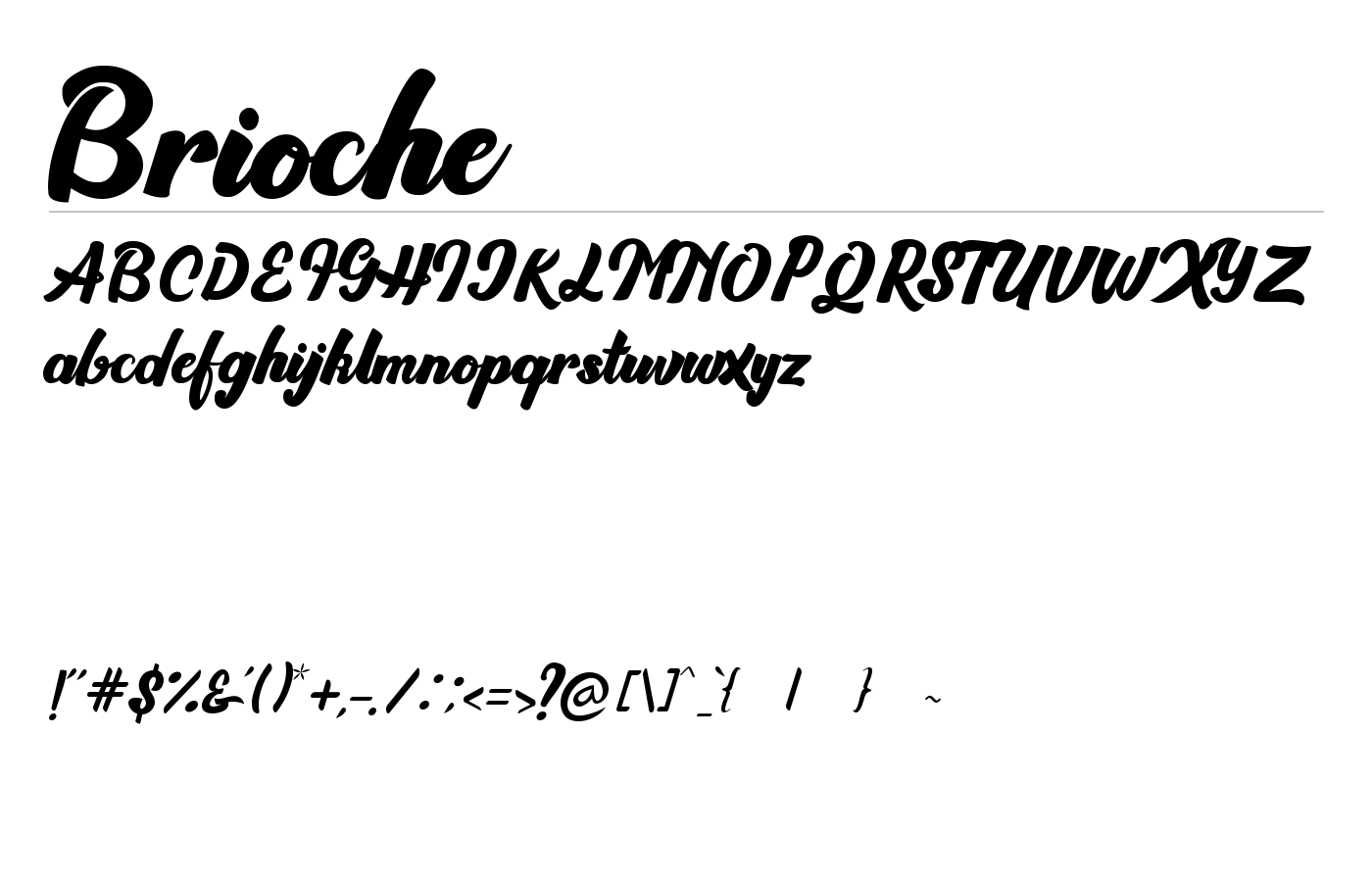
Brioche is a bold, brush script font with a lively and expressive personality, featuring smooth, rounded strokes and a casual, hand-painted feel. Its thick, dynamic letterforms and playful curves make it perfect for creating eye-catching headlines, logos, and branding that want to convey creativity and warmth. This font works especially well in projects that need a friendly yet confident touch, such as food packaging, creative advertising, and informal editorial designs.
Brioche Font
About Brioche Font